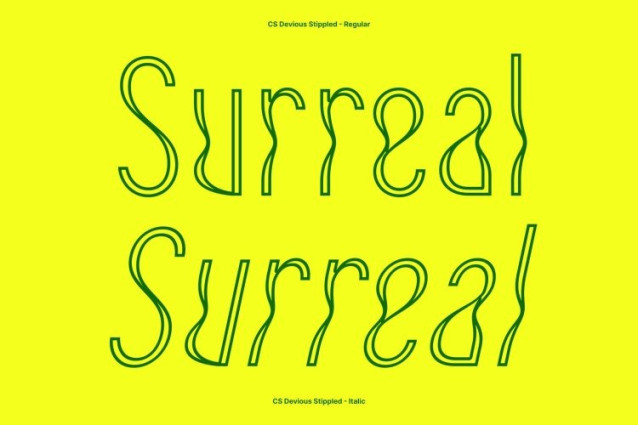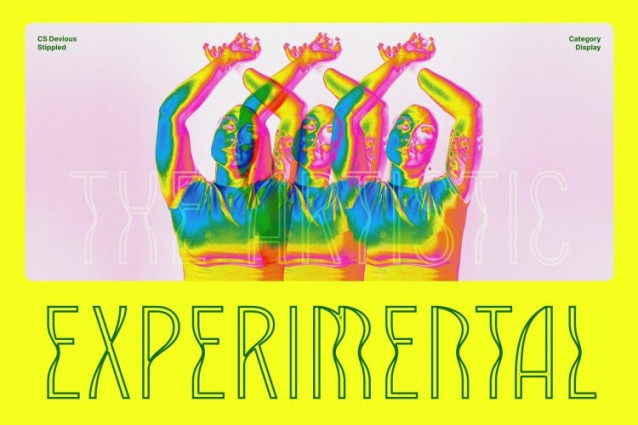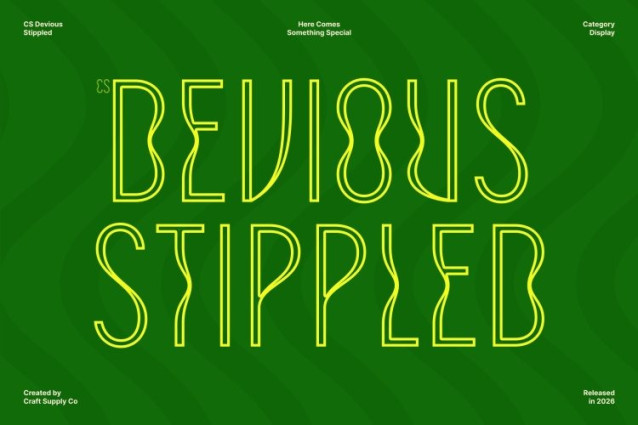
CS Devious Stippled Font
CS Devious Stippled Font – This is a modern psychedelic display font that features flowing curves, distorted shapes, and expressive letterforms that radiate funky, cheerful energy. Inspired by the vibrant aesthetics of psychedelic design, the font embraces unconventional structures that create a lively and attention-grabbing visual style. The addition of a stippled texture introduces a subtle dotted surface, adding depth and a handcrafted character that enhances its artistic appeal.
Playful and Expressive Visual Character
The dynamic curves and warped forms of create a bold personality that feels energetic and imaginative. Its quirky shapes and rhythmic flow give the typography a sense of movement and freedom, while the stippled detailing adds visual richness without overpowering the design. This balance between playful form and textured detail results in a display font that feels both expressive and visually engaging.
Perfect for Bold Creative Expression
Designed for projects that celebrate creativity and individuality, thrives in visually adventurous environments. Its distinctive character makes it perfect for designs that aim to spark curiosity and capture attention with a vibrant and unconventional style.
Ideal for Music, Art, and Creative Branding
This is well-suited for music festival posters, creative merchandise, album artwork, branding projects, and contemporary graphic design. By combining psychedelic distortion with textured stippled effects, the font delivers a bold and memorable typographic presence that energizes any visual composition.